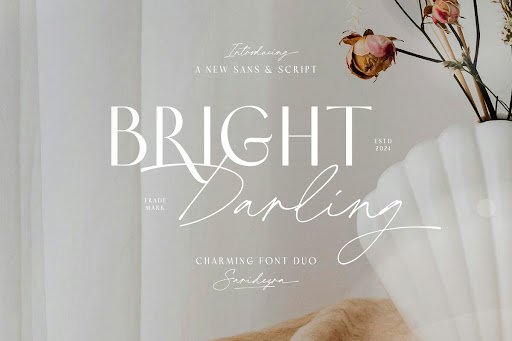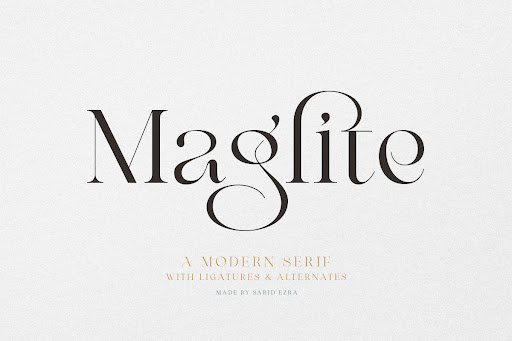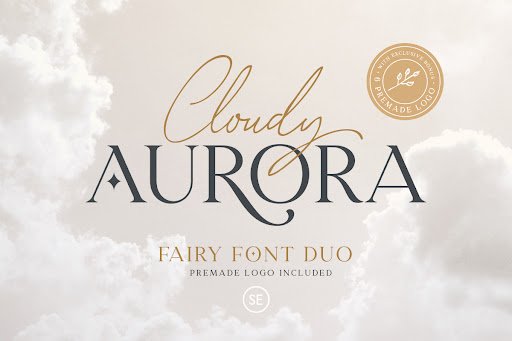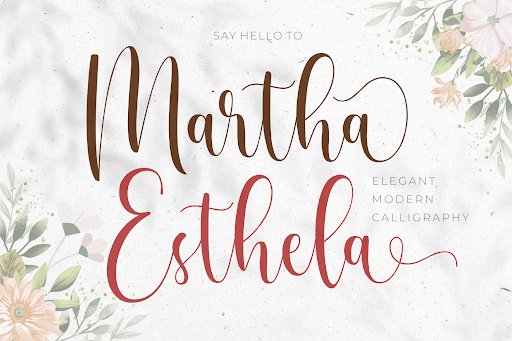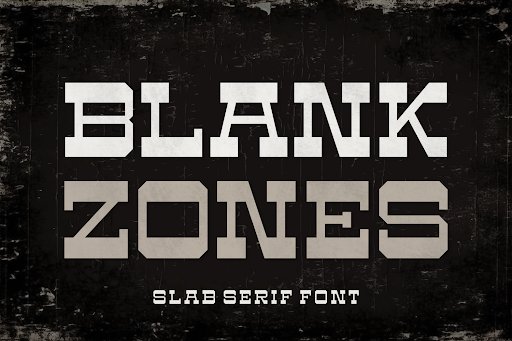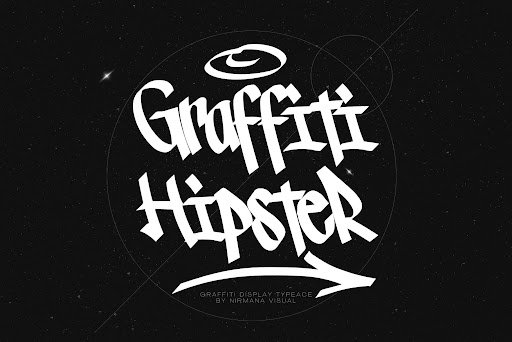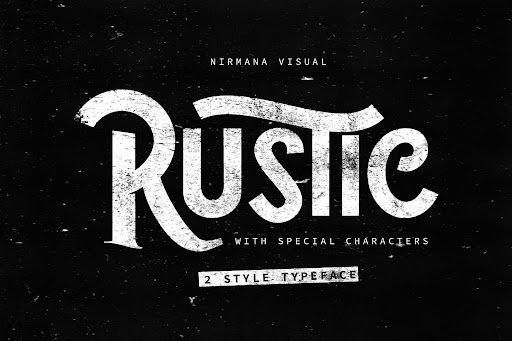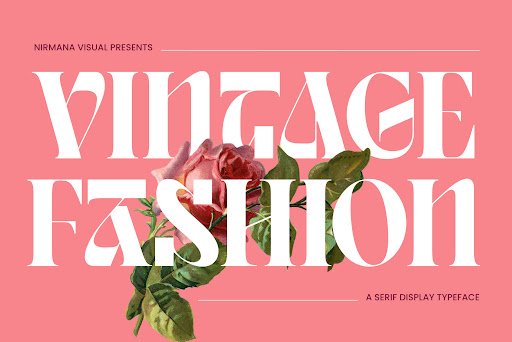
1. Bright Darling Duo Font
Bright Darling Duo Font by saridezra is an absolute game-changer for designers looking to blend modern elegance with playful charm. This versatile typeface combination allows you to effortlessly mix script and sans-serif elements, giving your branding, social media graphics, and packaging designs a custom, hand-crafted feel.
2. Maglite Font
Maglite Font by saridezra is a beautifully crafted typography asset that brings bold, striking visuals to the forefront. Perfect for eye-catching headlines, editorial spreads, and impactful poster designs, this font commands attention while maintaining exceptional readability across all mediums.
3. Cloudy Aurora Font
Cloudy Aurora Font by saridezra delivers a soft, elegant touch to your creative projects, making it a stellar choice for wedding invitations, boutique branding, and high-end cosmetics packaging. Its graceful curves and fluid styling evoke a sense of luxury and sophistication.
4. Martha Esthela Font
Martha Esthela Font by Situjuh is an exquisite script typeface that breathes life into any layout requiring a personal, handwritten touch. Its sweeping ascenders and natural flow make it an indispensable tool for digital signatures, personalized stationery, and luxury brand identities.
5. Blank Zones Font
Blank Zones Font by Situjuh offers an edgy, contemporary aesthetic that perfectly suits forward-thinking brands and modern UI/UX design. The clean lines and distinct geometric structure provide a minimalist yet powerful foundation for logos and tech-centric digital content.
6. Graffiti Hipster Font
Graffiti Hipster Font by Sigit Dwipa injects raw, urban energy into your typography collection, bringing authentic street-style vibes to your artwork. This bold and rebellious font is ideal for apparel design, music event posters, and streetwear branding that needs to make a loud statement.
7. Rustic Font
Rustic Font by Sigit Dwipa captures the timeless charm of the great outdoors, delivering a textured, weathered look that resonates with vintage aesthetics. It is the perfect choice for artisanal packaging, outdoor lifestyle brands, and nostalgic advertising campaigns.
8. Vintage Fashion Font
Vintage Fashion Font by Sigit Dwipa seamlessly bridges the gap between retro nostalgia and modern editorial elegance. Designed specifically for fashion magazines, lookbooks, and upscale apparel branding, it offers a sophisticated visual rhythm that elevates your typography.